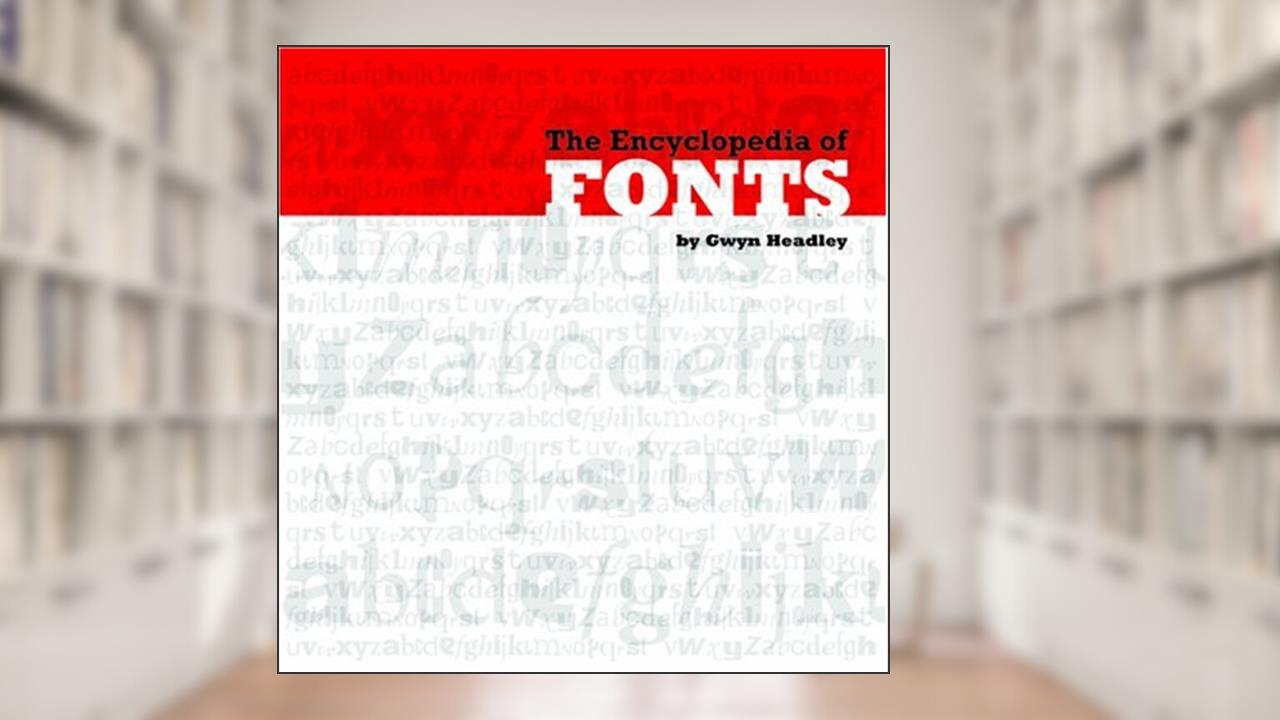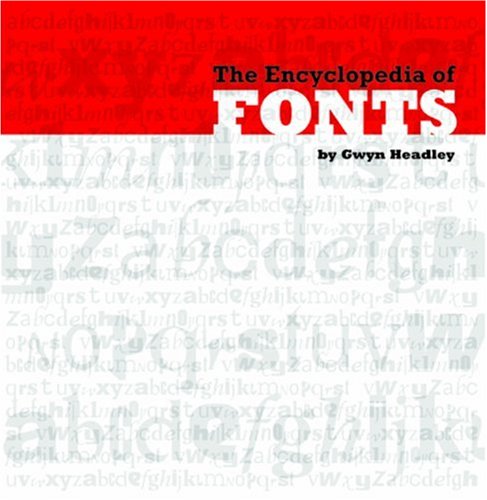
The Encyclopedia of Fonts
Gwyn Headley
In the vast world of design, typography often lurks in the shadows, whispering secrets only the most observant can hear. The Encyclopedia of Fonts by Gwyn Headley is your invitation to amplify those whispers into a roaring symphony of visual communication. This isn't just a book; it's a vivid exploration into the very essence of fonts, shaping our world, one letter at a time. 📜✨️
Headley, a conspicuous figure in the realm of design, takes you on a journey through a staggering array of typefaces that have influenced culture, art, and communication. You might wonder, what makes a font more than just a series of letters? The answer lies within the pages of this masterpiece. Fonts can evoke emotions, drive change, and most importantly, tell stories. When you turn each page, prepare to unearth how a typeface can resonate with the deepest corners of your soul or evoke an unexpected chuckle.
Font selection is often an underappreciated craft. Readers have noted in reviews that Headley's work is a revelation. One passionate admirer exclaimed, "This book opened my eyes to the world of typography, where the smallest detail can affect the largest impact." Indeed, every letter you see is imbued with meaning, context, and history-fueled by cultural evolution and technological advancements. Whether it's the elegant strokes of serif fonts that whisper sophistication or the bold, blocky letters demanding your attention, The Encyclopedia of Fonts delivers an avalanche of inspiration.
Among the praises, however, you'll find critical reflections as well. Some readers argue that while the book scratches the surface beautifully, it leaves those craving deeper exploration longing for more traditional analysis and critical context. Yet this is perhaps a testament to the book's engagement-it ignites a thirst for knowledge that may lead you down rabbit holes of creative research. 🌌
Typography plays a crucial role far beyond graphic design; it shapes our identity. It affects the way we perceive the world and interact with it, infusing our lives with clarity or confusion. Think about it: the logo on your favorite café, the street signs guiding you home, even the text messages you receive-they are all crafted with intention. When wielded by skilled designers, fonts are not merely tools; they are powerful weapons of engagement. 🔍💥
Headley's work fosters an appreciation for this understated power, urging readers to be mindful of their own choices in typography. It's a subtle nudge to reimagine how you see and use fonts in your daily life. What if every time you wrote a message, you chose a font that not only conveyed your thoughts but also communicated your feelings? This is the command Headley issues to readers: notice, appreciate, and understand.
As you delve into The Encyclopedia of Fonts, allow yourself to be swept away by a colorful tide of creativity. Don't just read it; live it. Every page turns into a canvas that encourages you to breathe life into your design work, paving the way for a revolution in how you interact with typography. ⚡️📝
Ultimately, Headley masterfully intertwines knowledge and artistry. So, what are you waiting for? Let your curiosity catapult you into the transformative world of fonts that awaits within. You may just find that in those curves and lines, there lies a profoundly personal connection to the world around you. Dare to explore, and you might discover that fonts are not just letters; they are the voices of our past, present, and future, waiting for you to listen.